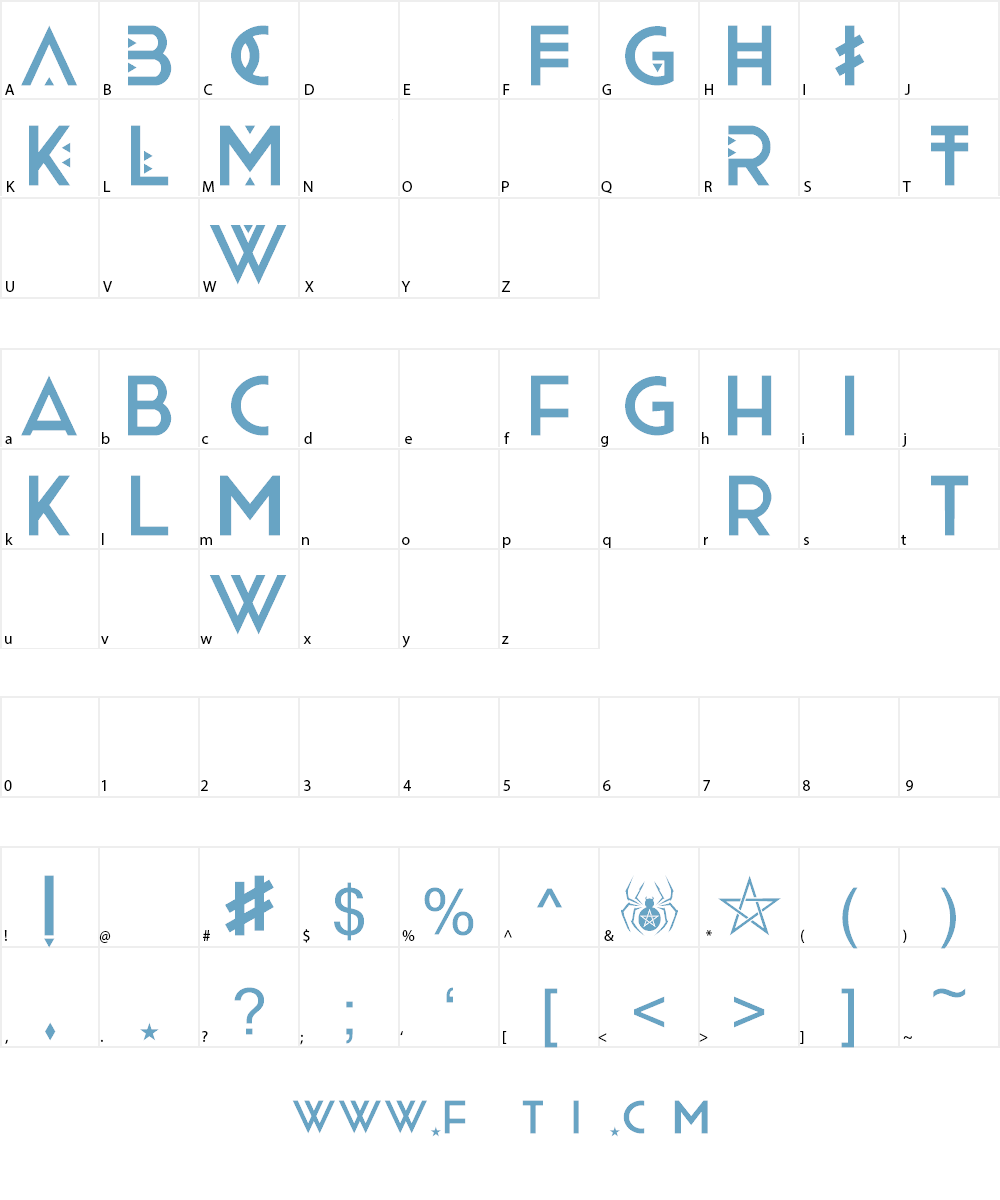
Dark Magical typeface based on the cover of the Little Mix Black Magic CD single with similar Crescents, Triangles and Pentagrams. This is a sample of 13 lowercase and capitals if you want the fully kerned OTF embeddable commercial version with numbers and accented glyph's please visit my Etsy Store @ http://etsy.me/2v2Q0tP